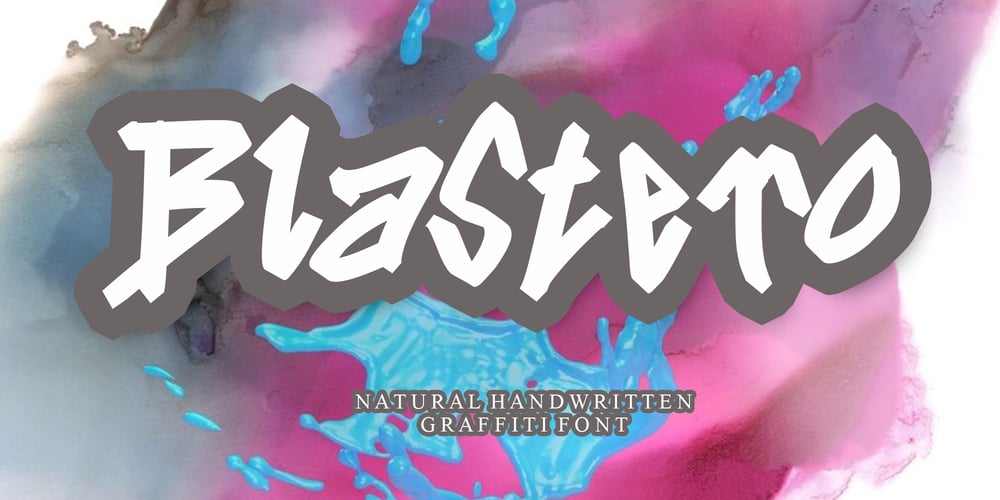
Blastero Font Family was designed by Ahmad Afandi and published by Letterafandi Studio. Blastero contains 2 styles and family package options. Blastero is a natural handwritten graffiti font. It looks stunning on thank you cards, quotes, greeting cards, logos, business cards, and every other design which needs a handwritten touch.